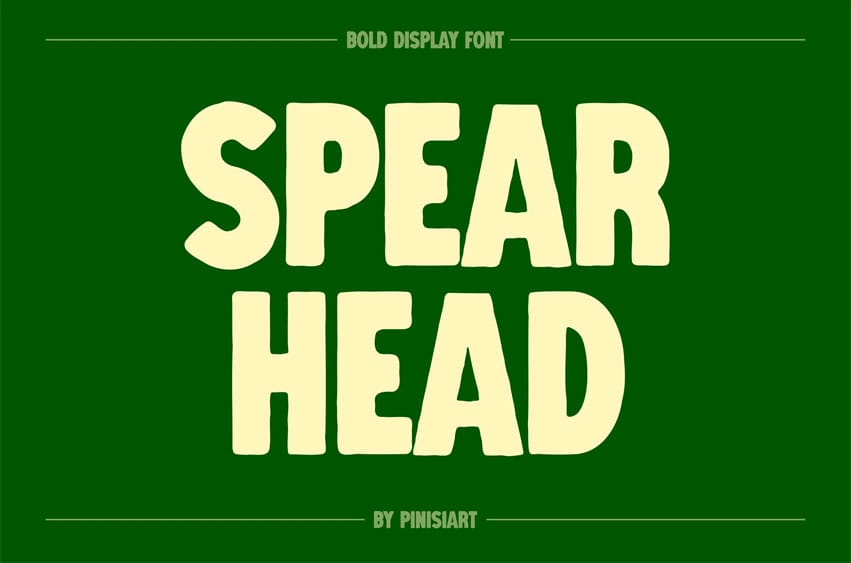
Spearhead Font is a bold retro display font with geometric letterforms, generous proportions, and a fresh organic vibe. Its rounded edges and strong vertical rhythm give it a confident yet approachable tone, perfect for projects that need to feel both vibrant and trustworthy. Inspired by classic grocery signage and eco-friendly packaging, SPEARHEAD brings nostalgic charm into modern branding.
Designed for standout headlines, eco-conscious packaging, farmers’ market branding, juice labels, and fresh lifestyle campaigns, SPEARHEAD connects with audiences who value boldness and clarity. Its retro vibe pairs seamlessly with wellness, organic food, and creative startups—instantly elevating posters, advertisements, and social media graphics with refreshing energy.
- Bold retro vibe with clean geometric proportions
- Organic flow that conveys freshness and vitality
- Versatile for branding, packaging, and editorial design
- Easy-to-read headlines with high visual impact
- Perfect balance of nostalgia and modern relevance